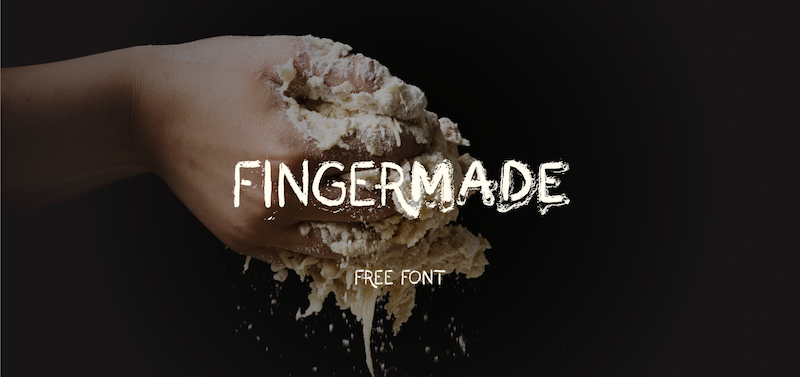
Font name: | Fingermade |
Author: | Andrea Gaspari |
Note by Andrea Gaspari | |
A new entirely handcrafted font. Actually designed with anything but a finger. We have fingers. We are designer. *This trial font is TOTALLY FREE for NONCOMMERCIAL USES, especially for DELICIOUS RECEIPTS --------------------------- If you have questions, comments, suggestions or you just want someone to point to, please email at info@andreagaspari.it |